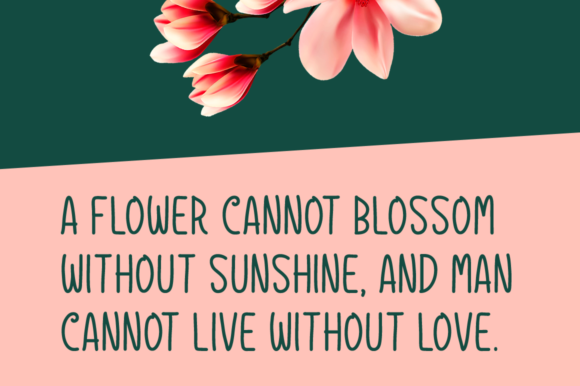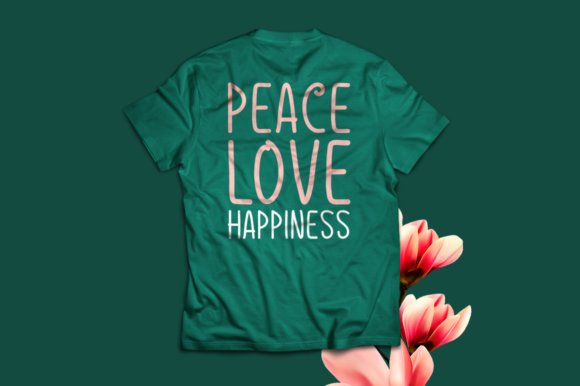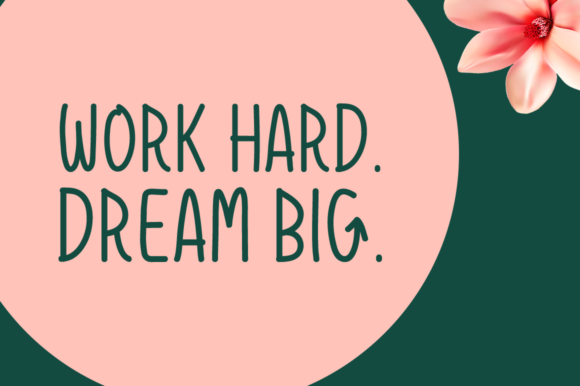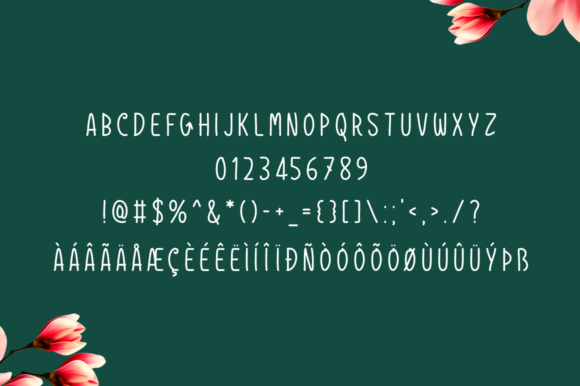
Discover the Playful Charm of Godroons Font: Elevate Your Designs with a Handwritten Twist
Are you tired of using the same old fonts in your designs? Look no further than Godroons Font, a delightful handwritten font that adds a playful touch to any project. With its fun elements and charming aesthetic, Godroons is the perfect choice for designers and crafters looking to create unique and eye-catching designs.
What Makes Godroons Font So Special?
Godroons Font is an amazing handwritten font that boasts a range of characteristics that set it apart from other fonts. Its playful feel and fun elements make it an ideal choice for designs that require a personal touch. Whether you’re working on a stationery project, logo design, or website header, Godroons Font is sure to bring a smile to your audience’s face.
Endless Design Possibilities with Godroons Font
One of the best things about Godroons Font is its versatility. It’s perfectly suited for a wide range of design applications, including:
- Stationery: Add a personal touch to your letters, cards, and invitations with Godroons Font.
- Logos: Create a unique and memorable logo for your brand with this charming font.
- T-shirts: Design eye-catching apparel with Godroons Font that’s sure to turn heads.
- Papers: Add a playful touch to your papers, journals, and notebooks.
- Print designs: Use Godroons Font in your brochures, flyers, and posters to grab attention.
- Website headers: Elevate your website’s design with a playful and engaging header.
- Photo frames: Add a personal touch to your photo frames and make them extra special.
- Flyers: Create eye-catching flyers that showcase your products or services.
- Music covers: Design unique and captivating music covers with Godroons Font.
- Posters: Create stunning posters that showcase your message with this amazing font.
- Image sliders: Add a playful touch to your image sliders and make them stand out.
Why Choose Godroons Font?
So, why should you choose Godroons Font for your next design project? Here are just a few reasons:
- Unique and playful aesthetic: Godroons Font adds a personal touch to your designs that’s sure to engage your audience.
- Versatile: Use Godroons Font in a wide range of design applications, from stationery to website headers.
- Easy to read: Despite its playful nature, Godroons Font is easy to read and understand, making it perfect for designs that require a clear message.
- Customizable: Experiment with different colors, sizes, and styles to make Godroons Font your own.
Tips for Using Godroons Font Effectively
To get the most out of Godroons Font, here are a few tips to keep in mind:
- Pair with complementary fonts: Combine Godroons Font with other fonts to create a unique and visually appealing design.
- Experiment with colors: Try out different colors and color combinations to add depth and interest to your design.
- Keep it simple: Don’t overcomplicate your design – Godroons Font is perfect for simple, yet effective designs.
| Font Name | Godroons Font |
| Author | Spanking Fonts |
In conclusion, Godroons Font is an amazing handwritten font that’s perfect for designers and crafters looking to add a playful touch to their designs. With its fun elements, versatility, and ease of use, Godroons Font is sure to become a favorite in your design arsenal. So why not give it a try and see the difference it can make in your designs?